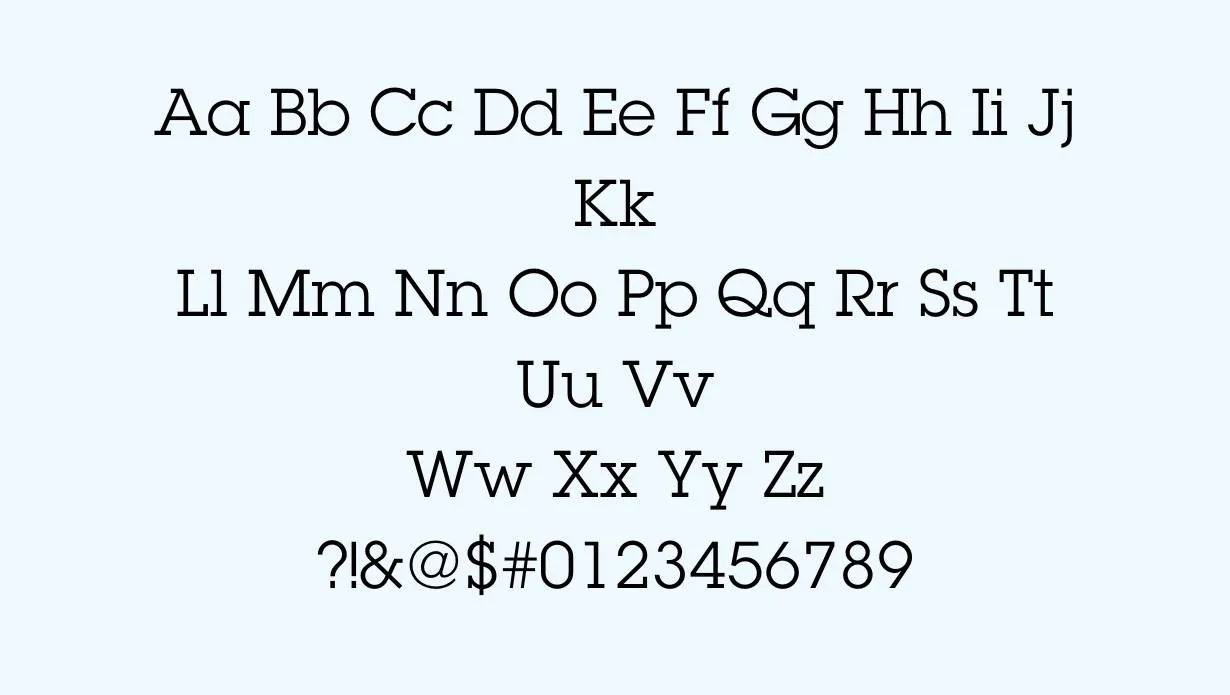
Meet the classy ITC Lubalin Graph Std Book Font. It’s like the James Bond of fonts smooth and sophisticated. Perfect for formal stuff like invites or any project that demands a touch of elegance and timeless style.
| Name | ITC Lubalin Graph Std Book Font |
| Designer | Edward Benguiat |